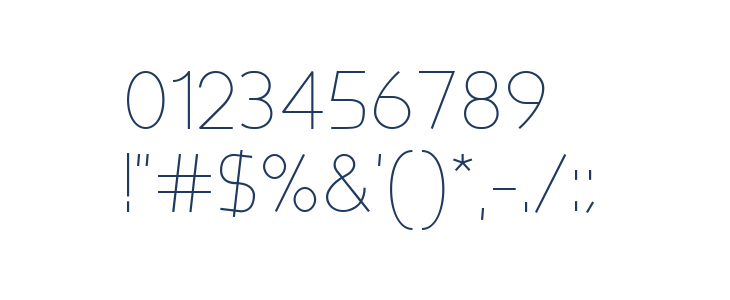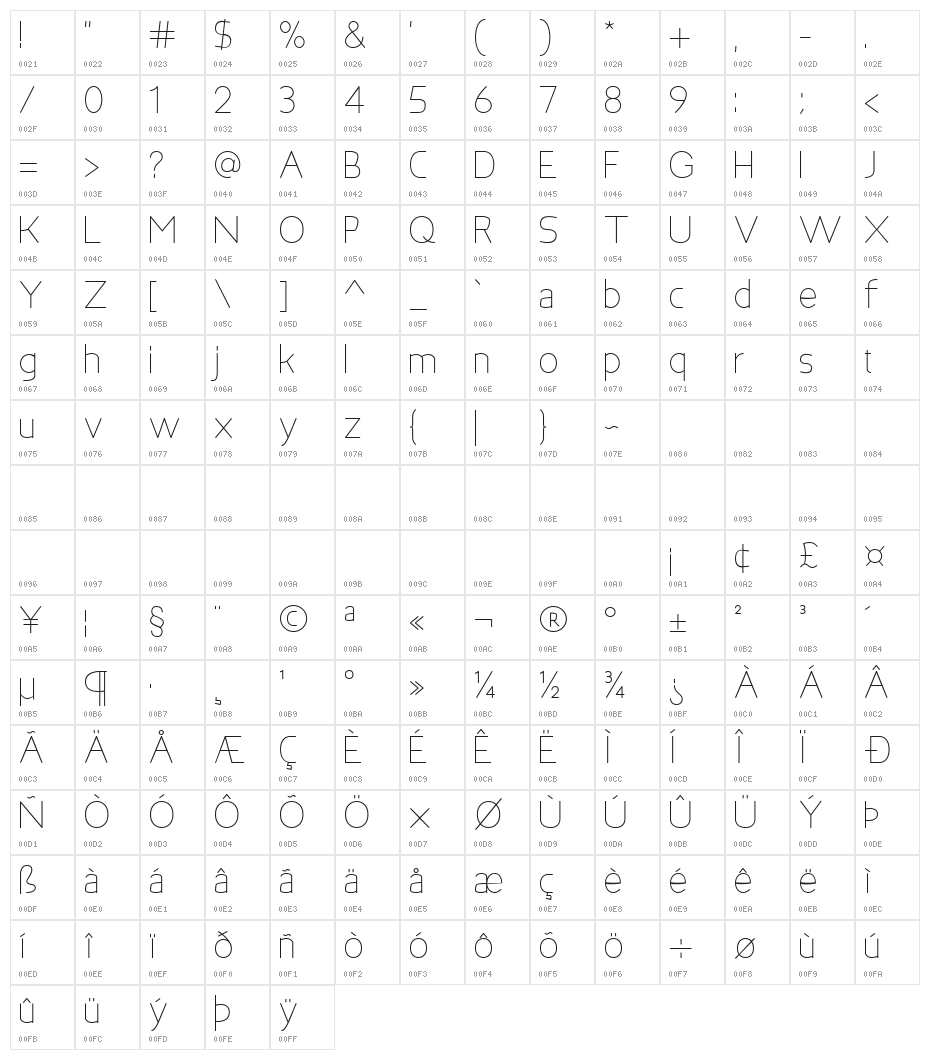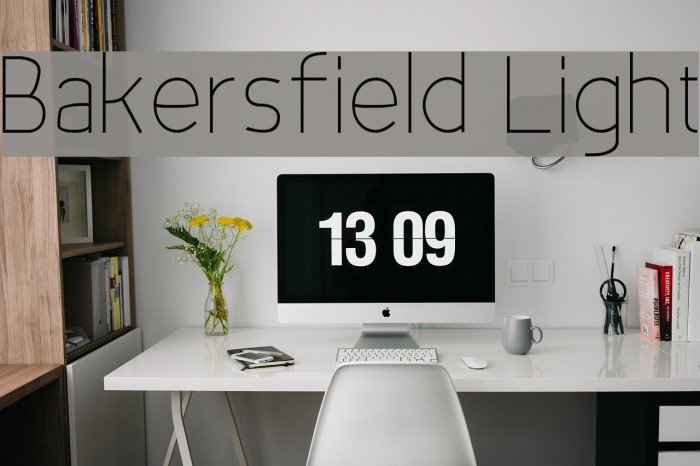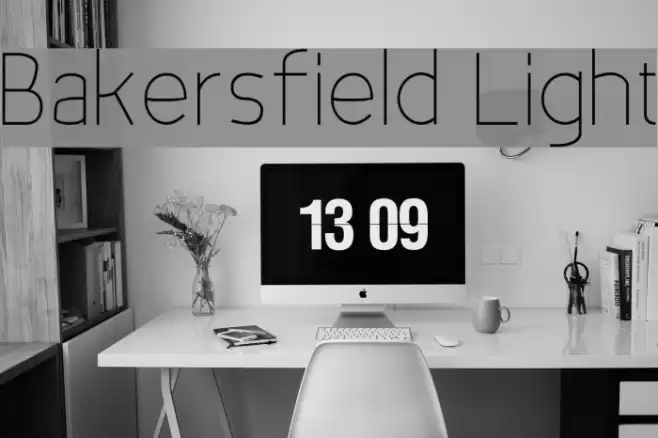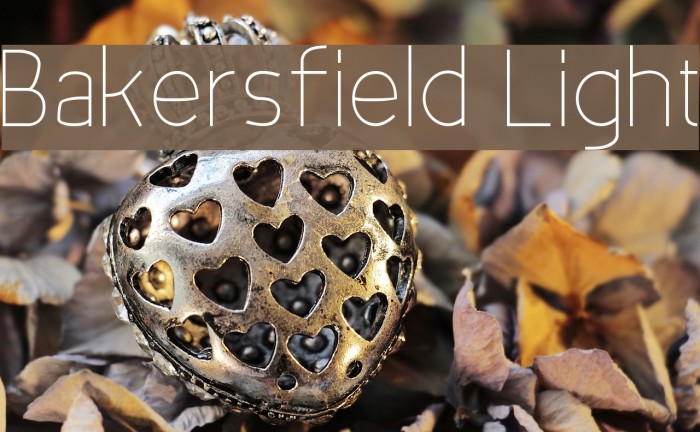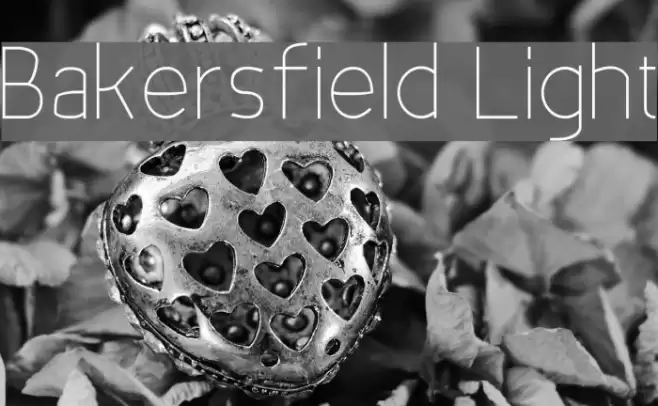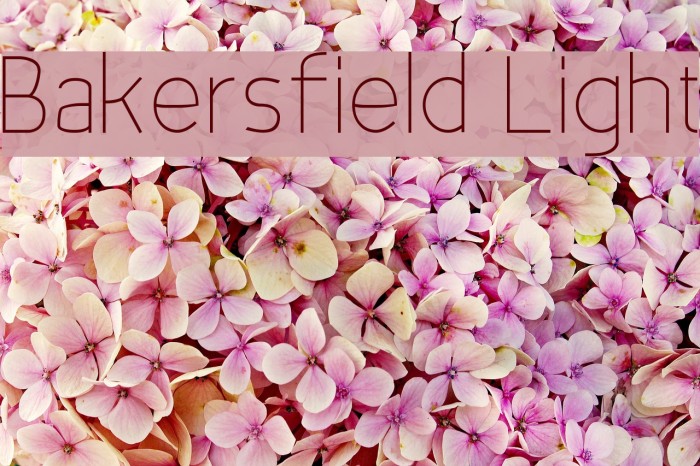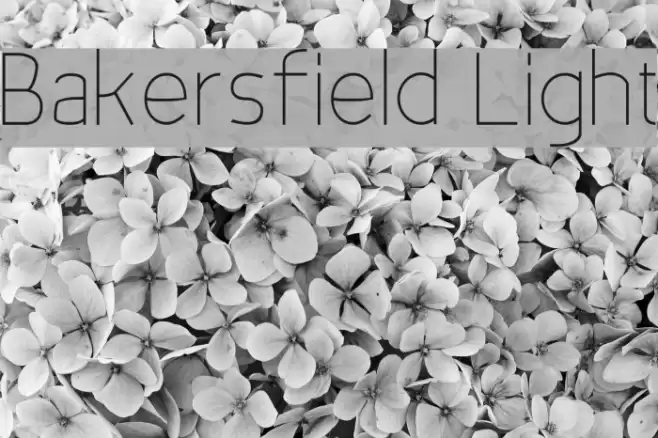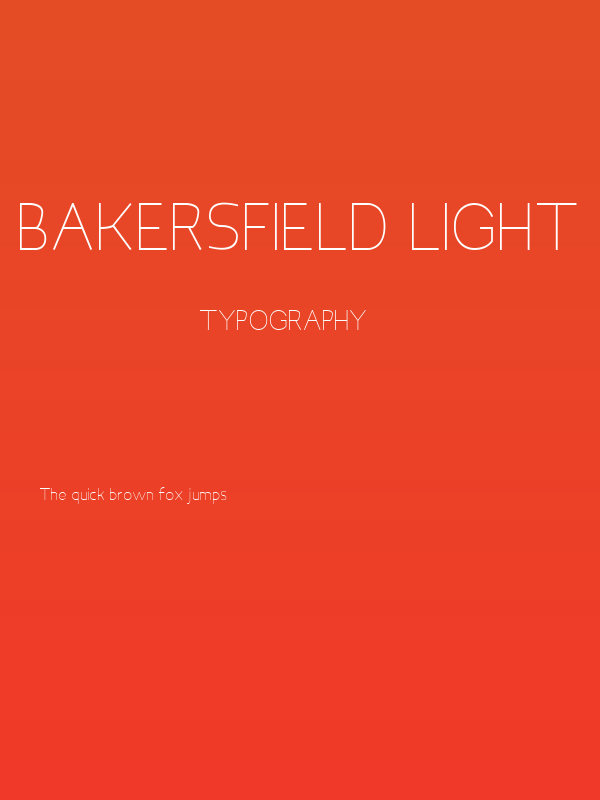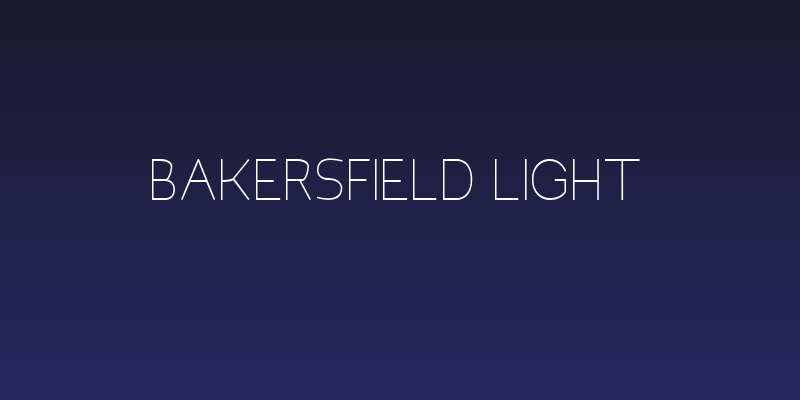
Bakersfield Light Font
Bakersfield Light Description
This font features a clean and modern design with a geometric structure. The characters are thin and elongated, giving it a sleek and elegant appearance. The uppercase letters are uniform in height, while the lowercase letters maintain a consistent baseline, enhancing readability. The numerals are proportionate and align well with the overall style, making them suitable for various applications. Special characters are distinct and maintain the font's minimalist aesthetic. This font's simplicity and clarity make it versatile for both digital and print media.
Use CaseHeadlines, Body text, Logos
Proposed ProjectsIdeal for branding, web design, editorial layouts, and corporate materials.